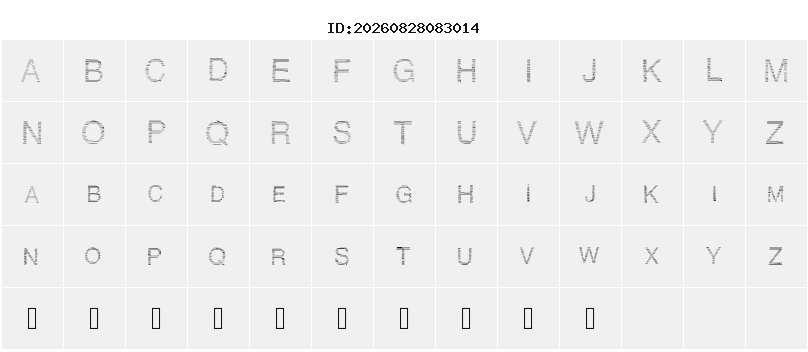
Traitlettre Preview
• Font Name: Traitlettre
• Full Font Name: Traitlettre
About Traitlettre.ttf
Traitlettre.ttf is a modern, elegant sans-serif font designed for ultimate readability and visual harmony. Perfect for branding, headlines, web design, and print materials.